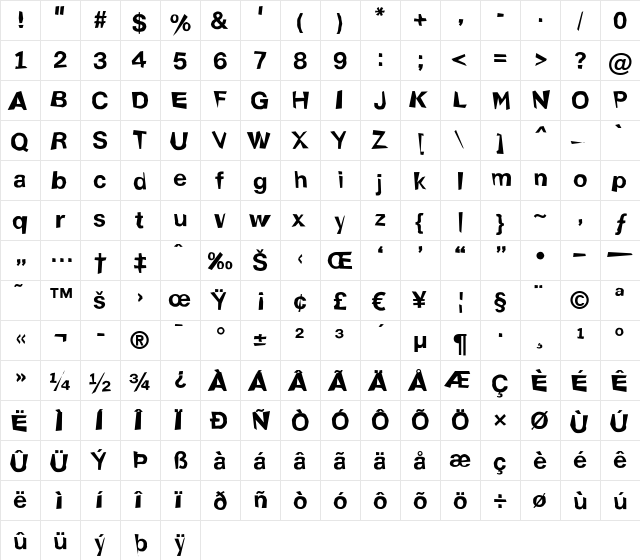
a_ReportSansDst Regular
| Designer | W.Chufarofsky & M.Slutsker |
Design Context for a_ReportSansDst Typeface
a_ReportSansDst is a composed and adaptable typeface that performs quietly and consistently across a wide range of design contexts.